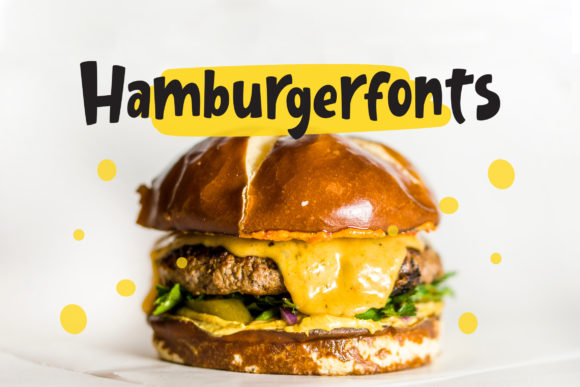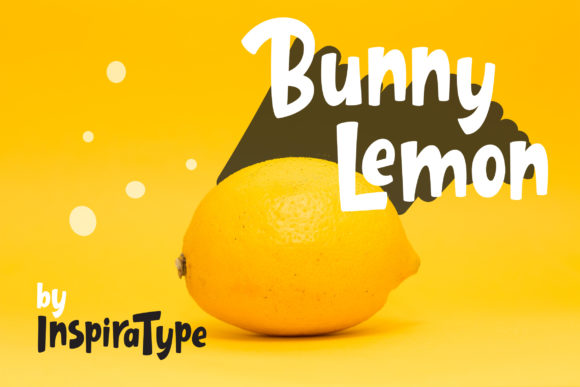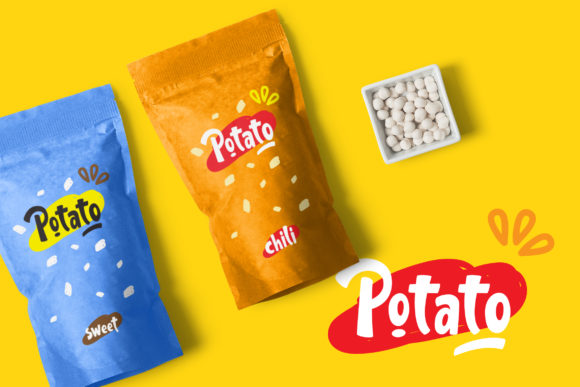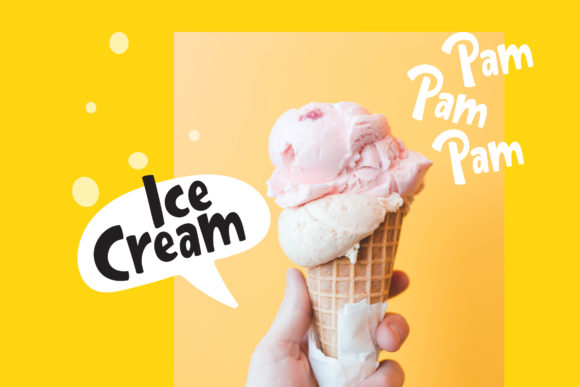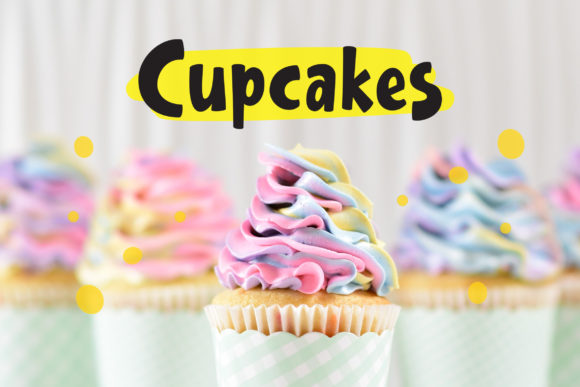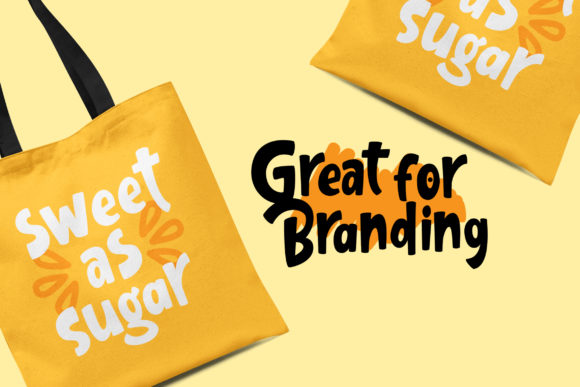
Introduction to Gula Font
Gula is a one-of-a-king display font with an incredibly adorable charm.
Get inspired by its whimsical feel, and turn any creative project into an eye catcher .
Key Features of Gula Font
Gula Font offers exceptional quality and versatility, making it a valuable addition to your design toolkit. Whether you’re creating for personal projects or commercial use, Gula Font delivers professional results.